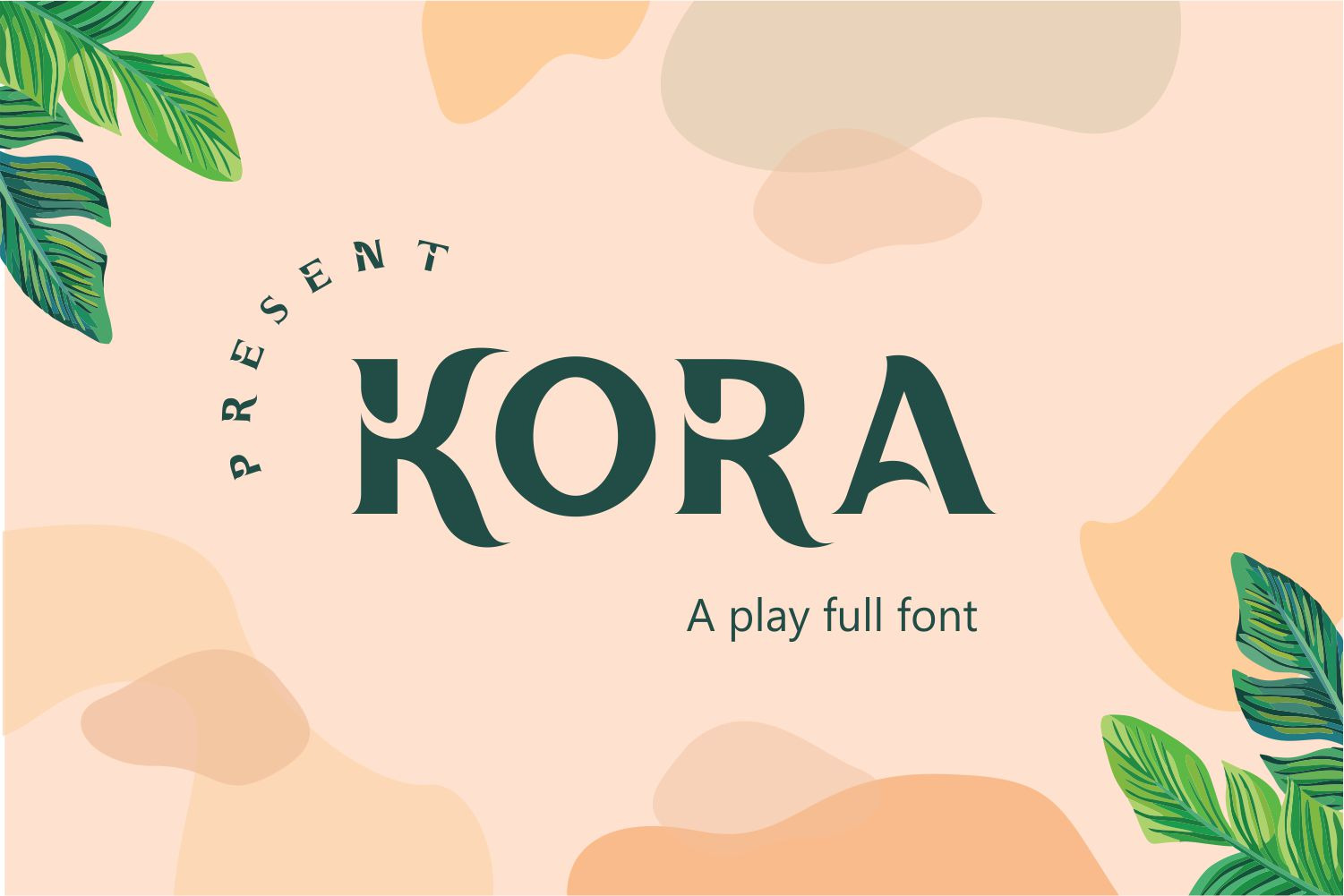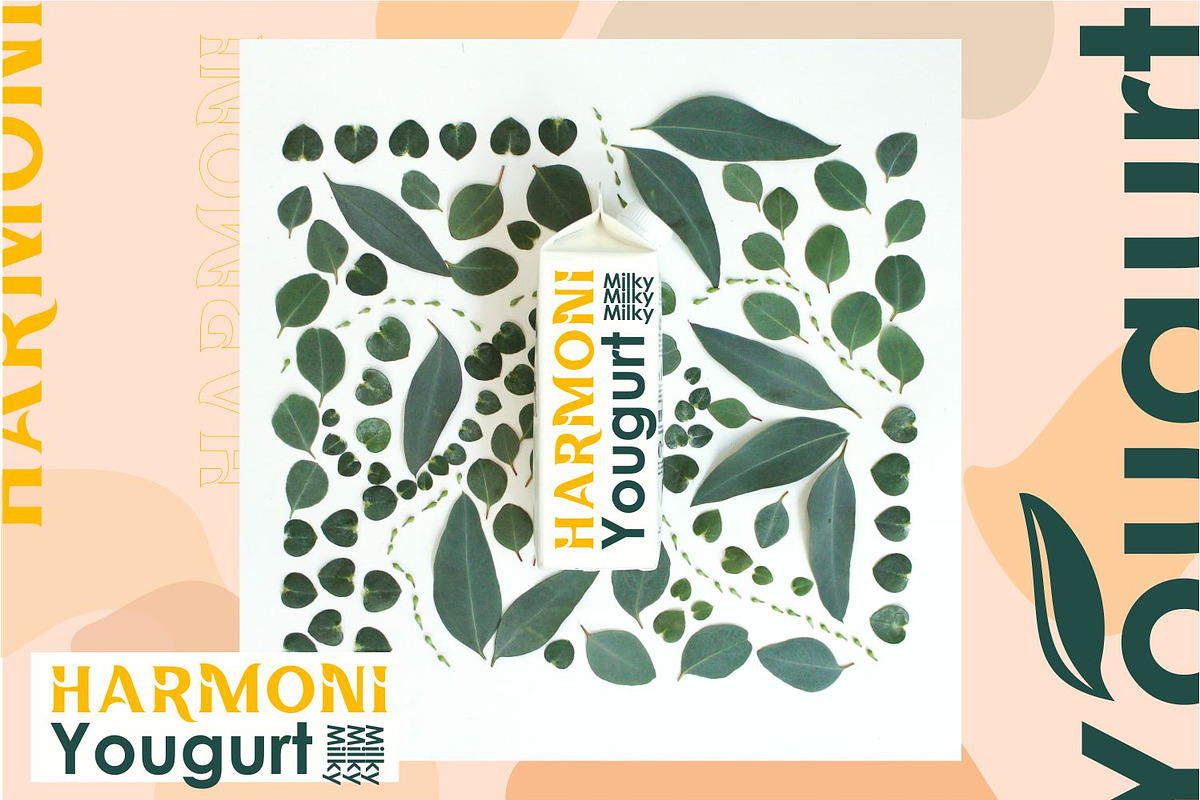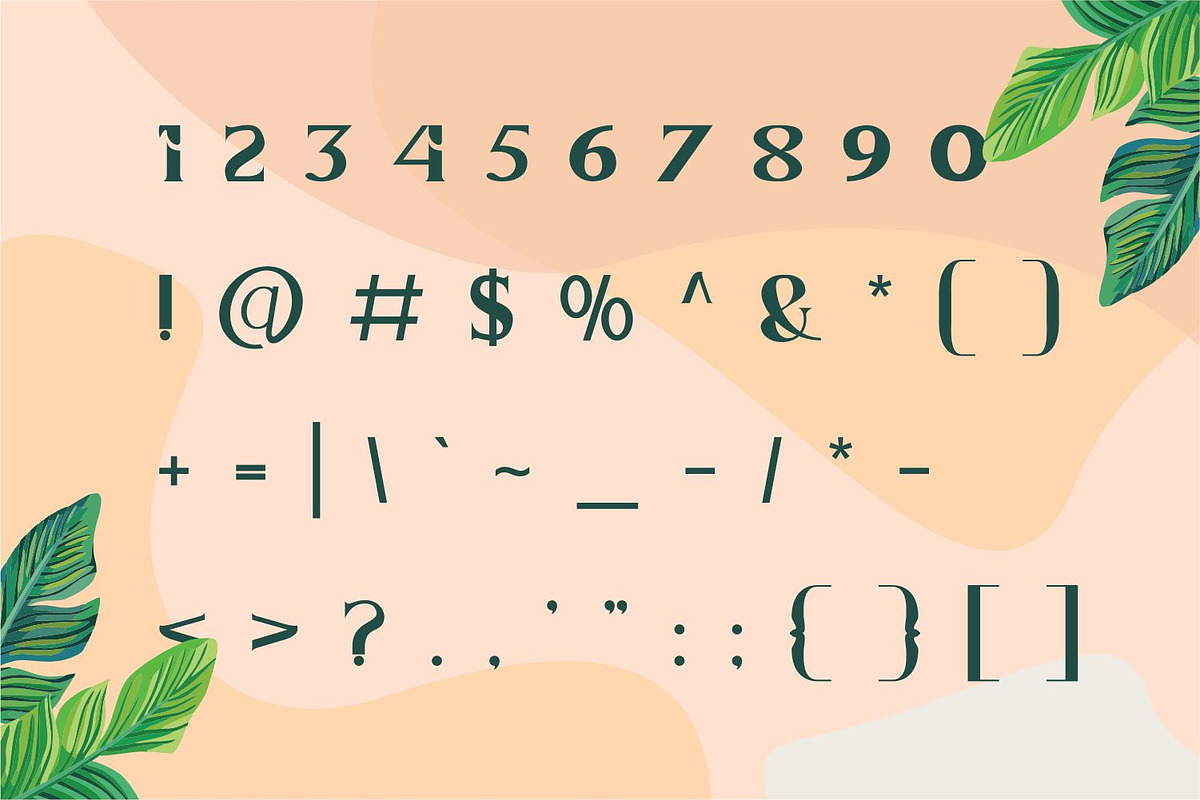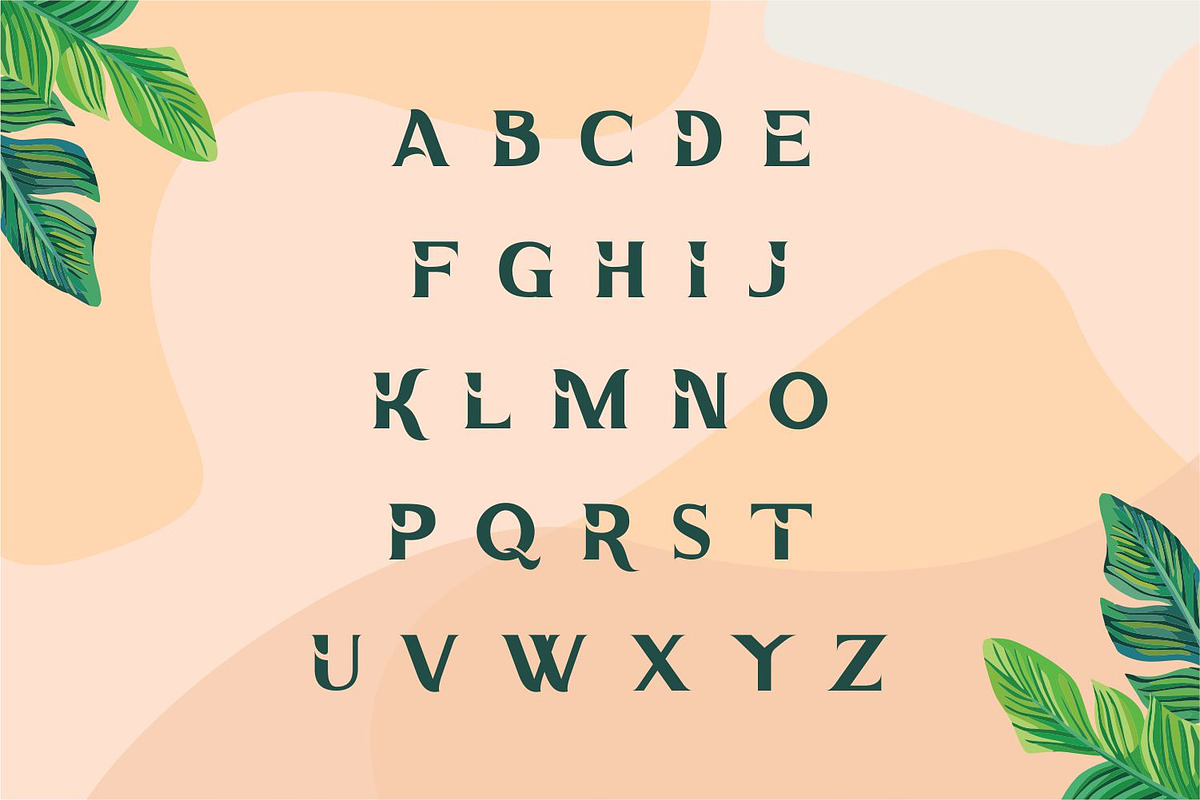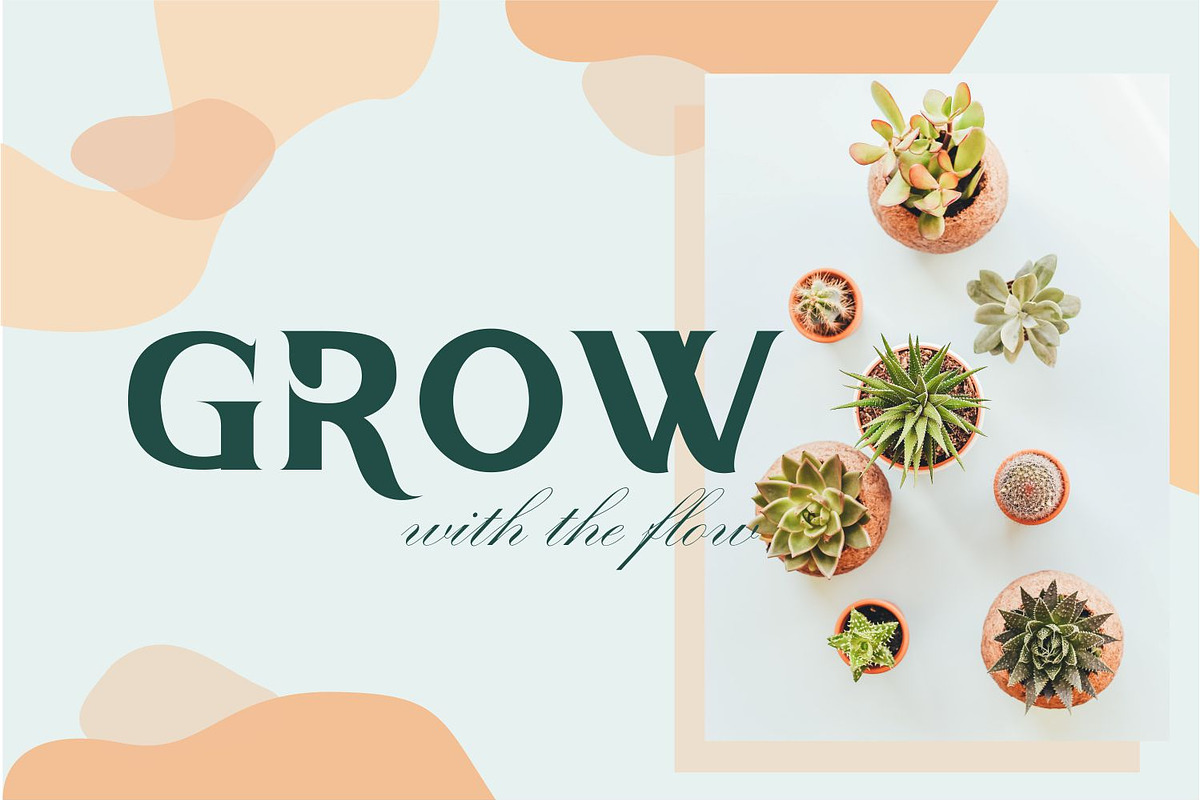
Kora Font | Bold Slab Serif Font
The Kora Font is a bold and versatile slab serif typeface that commands attention with its strong presence. With robust letterforms and distinct slab serifs, this font is ideal for conveying a sense of strength and authority in your designs. Whether you’re creating posters, headlines, or branding materials, the Kora Font adds a touch of boldness and professionalism to any project. Make a statement with the Kora Font and leave a lasting impression.